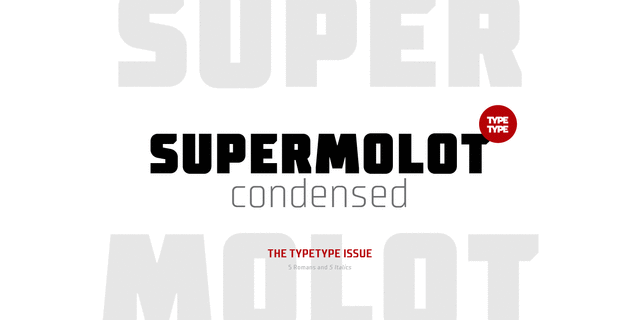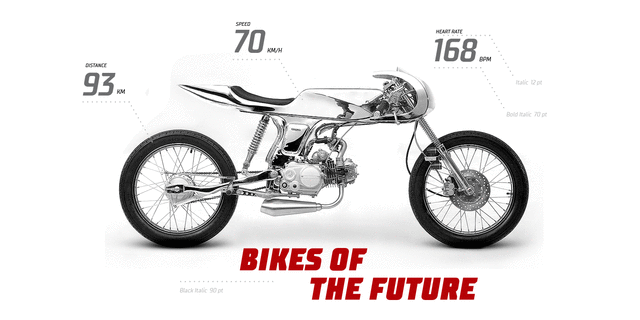
TT Supermolot Condensed (10)
About TT Supermolot Condensed is the narrow version of the TT Supermolot fontfamily. Thanks to its open forms, TT Supermolot Condensed fits perfectly into any contemporary technological design and navigation systems. We've already seen this fontfamily in the sports theme (as the main font for hockey teams branding), we've seen TT Supermolot as the main font inside the gameplay of a popular 3D-shooter Doom 4.
Information transfer in the high-tech areas is the ideal environment for this fontfamily, also TT Supermolot Condensed fits well into army, space, and innovation themes. We've tried to create a maximum number of convenient weights (Thin, Light, Regular, Bold, Black) for you to be able to use this family anywhere, from mobile apps and web pages to big state fairs branding.
The typeface was designed by Ivan Gladkikh and TypeType Team in 2016.
Передача информации в высокотехнологических областях — это идеальная среда для этого семейства. Также хорошо подходящими сферами для применения TT Supermolot Condensed являются темы армии, космоса, инноваций. Мы постарались сделать максимально удобное количество шрифтовых начертаний (Thin, Light, Regular, Bold, Black), чтобы вы смогли пользоваться данным шрифтовым семейством везде, начиная от мобильных приложений и сайтов, заканчивая темой упаковки и брендинга больших государственных выставок.
Шрифт разработал Иван Гладких и команда студии TypeType в 2016 году.
Doom